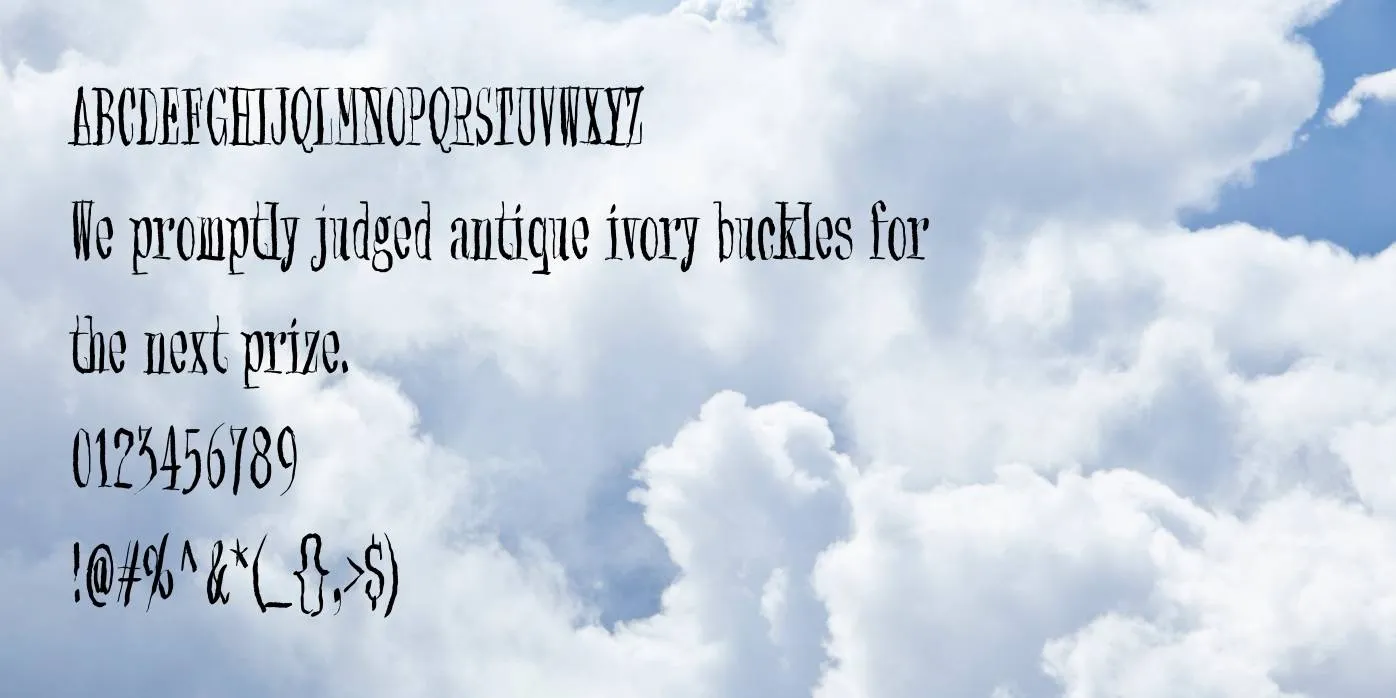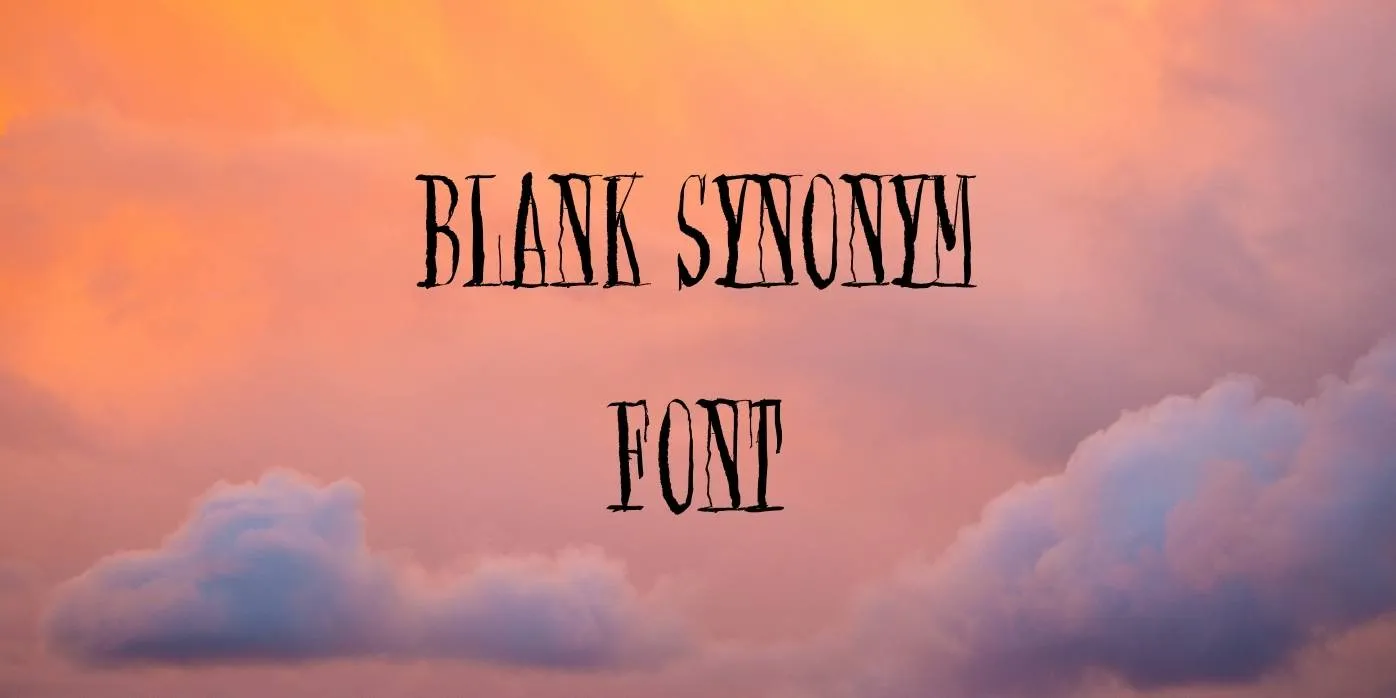
Blank Synonym Font
Blank Synonym font is an elegant and strange shape typeface that belongs to a fancy font family. The designer of this typeface is Junkohanhero. It has TTF features and is free for personal use only. This typeface texture is very unique and has a great personality.
This TrueType Outlines font has very fancy textural characters consisting of Uppercase and Lowercase, Letters, Numbers and Numerals, and special symbols as well. The font family supports many languages and provides a great vibe to the user. The typeface is very worthier for making many unique designs in CSS (Cascading style sheet) and many other designing software like adobe photoshop etc.